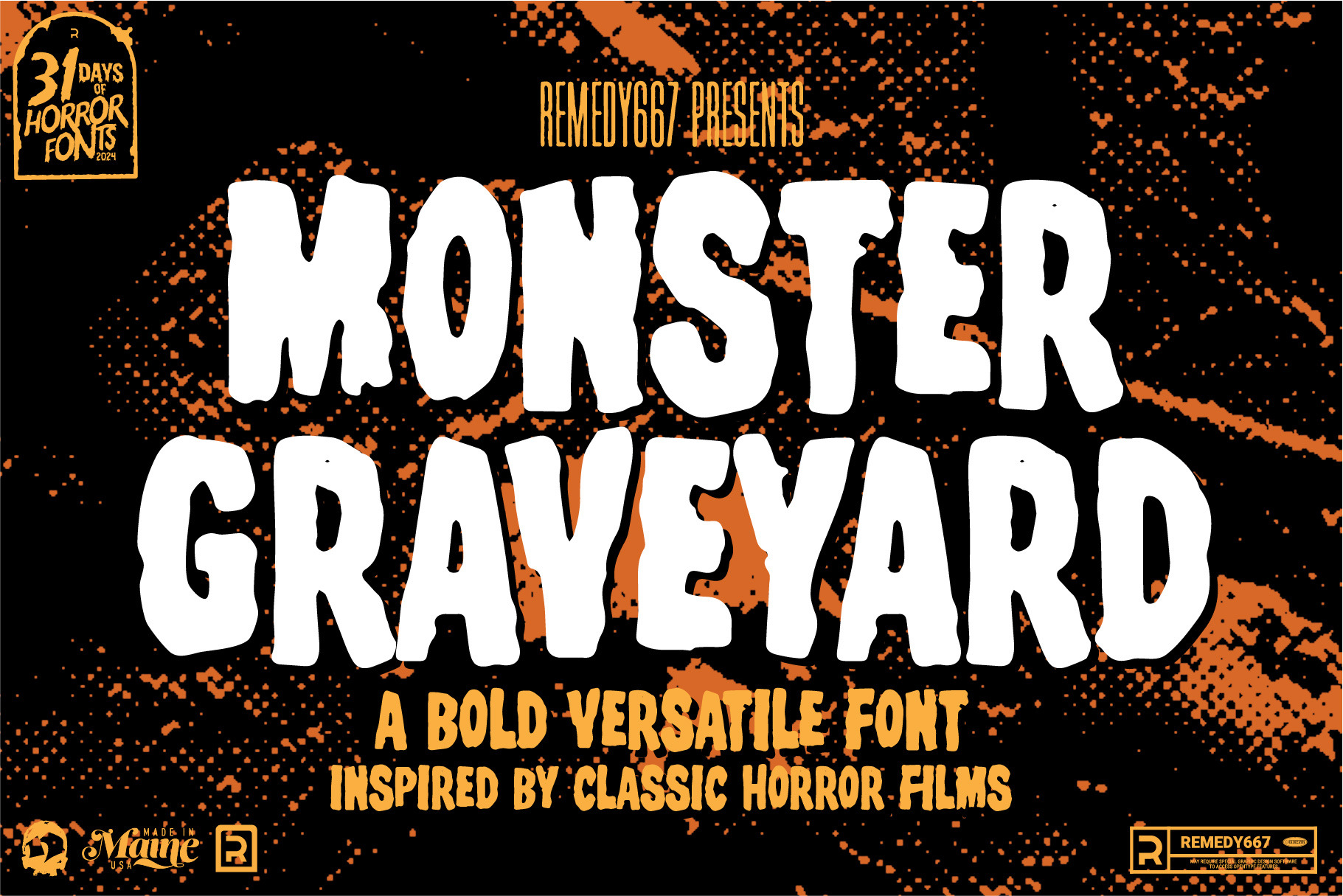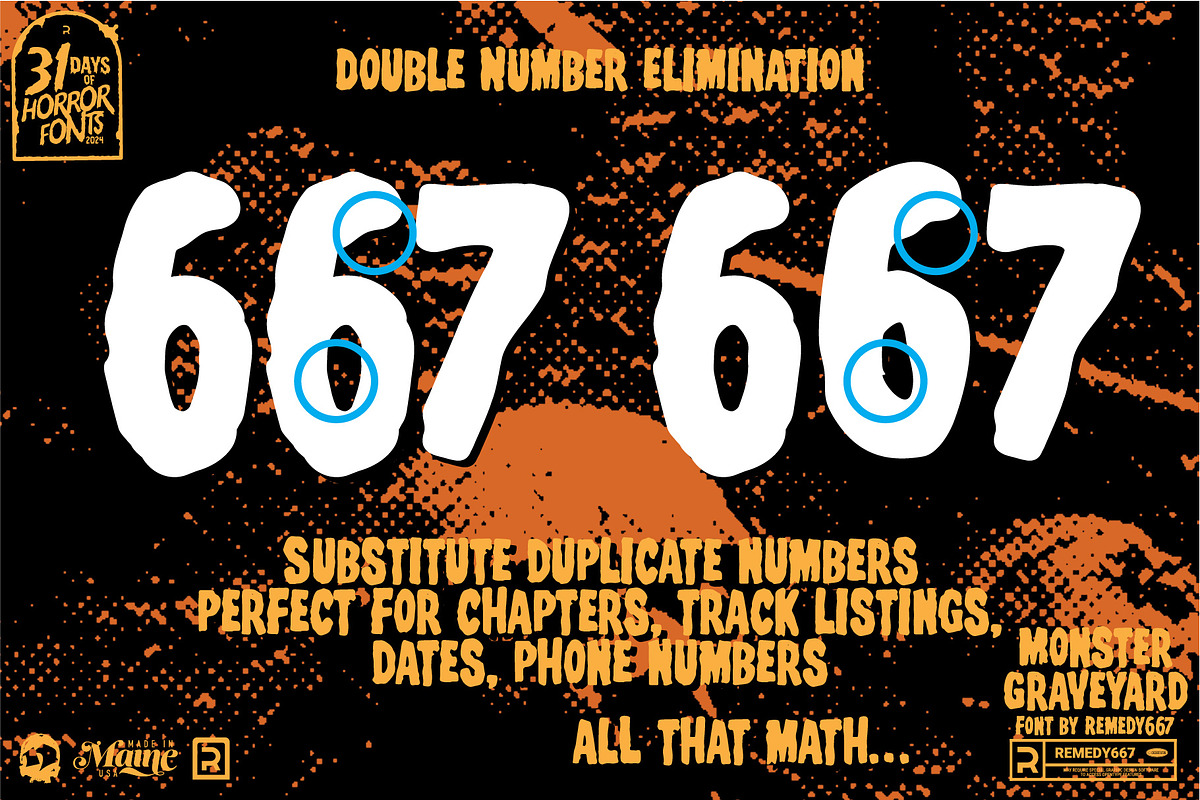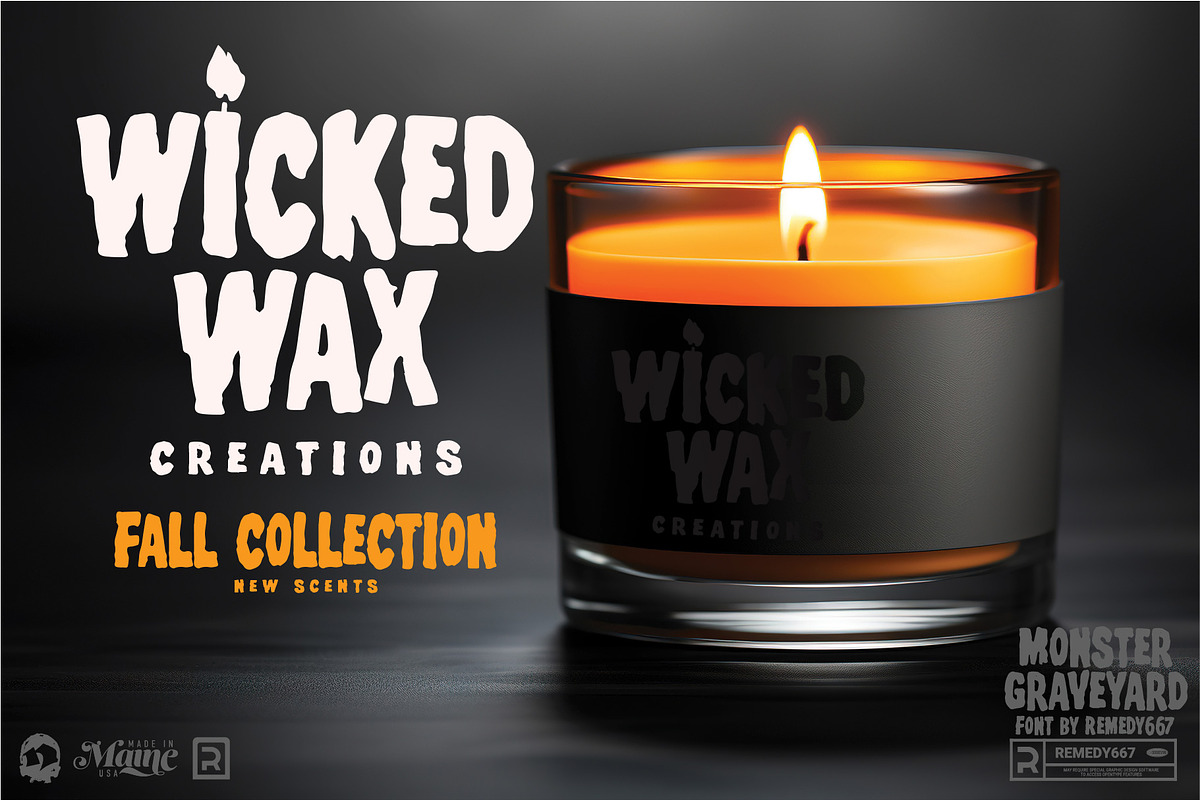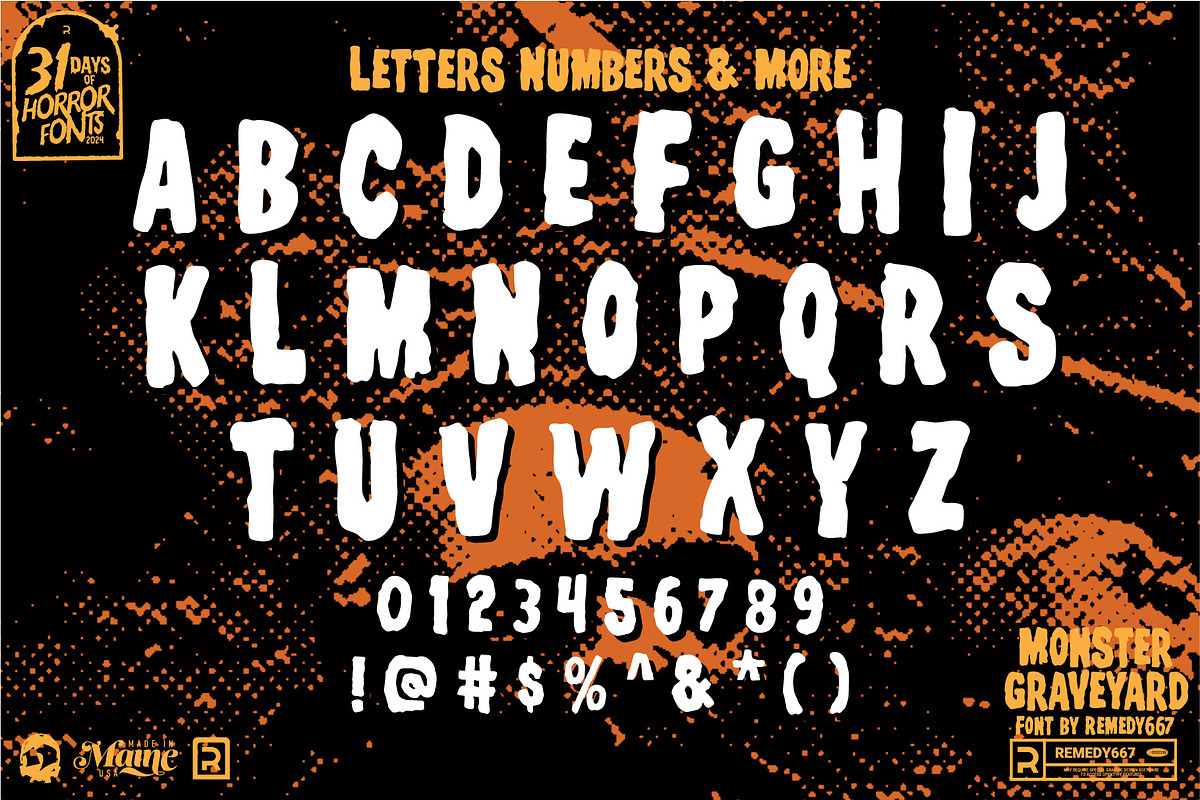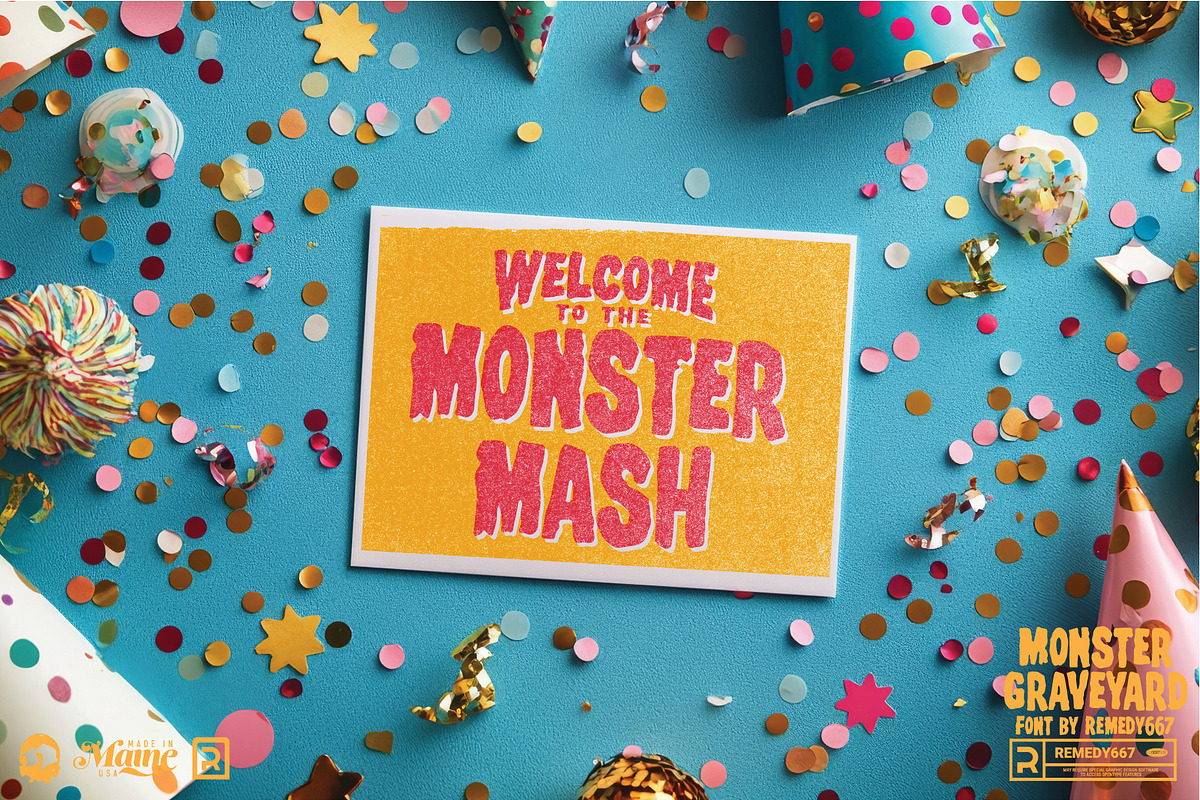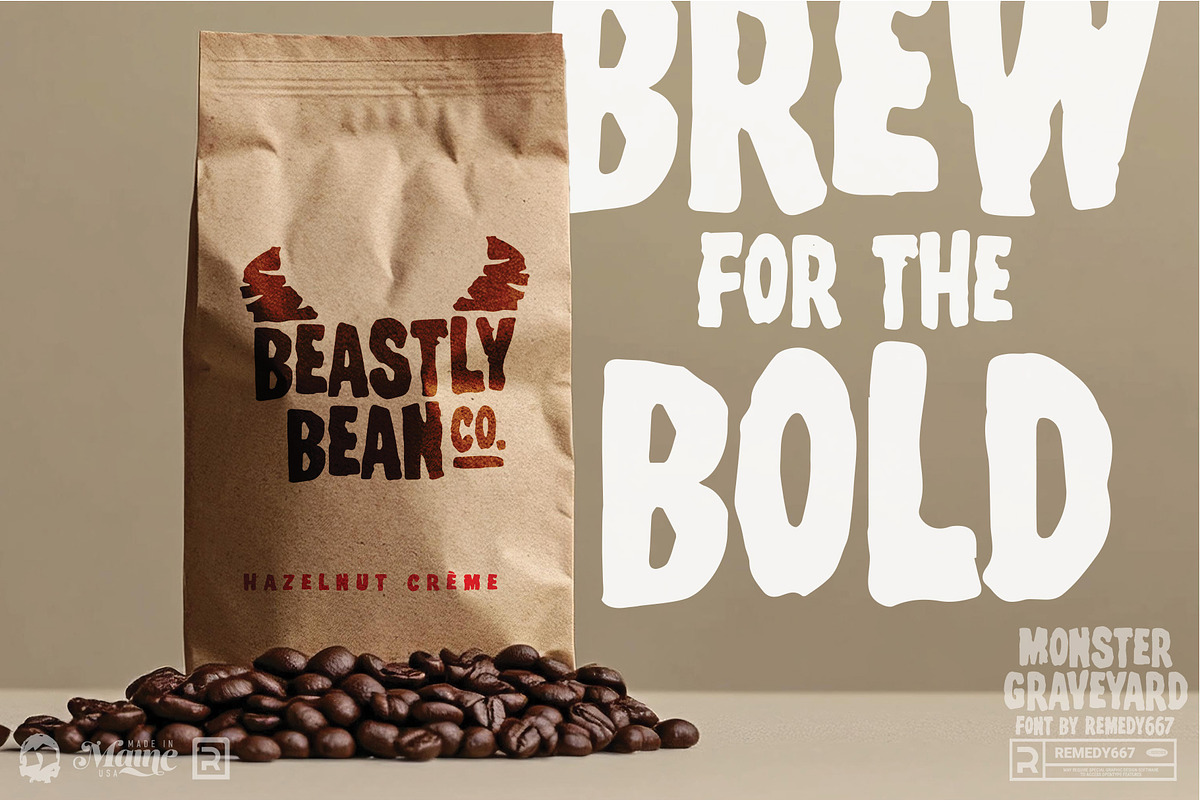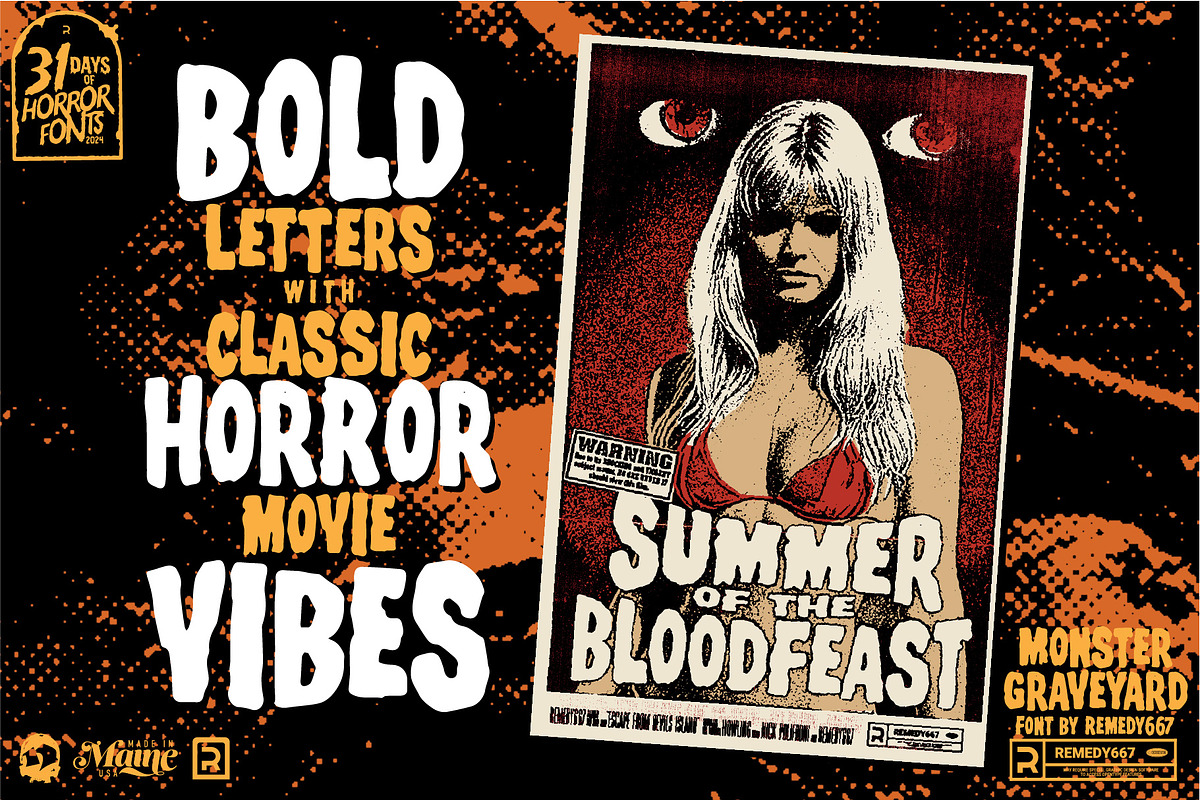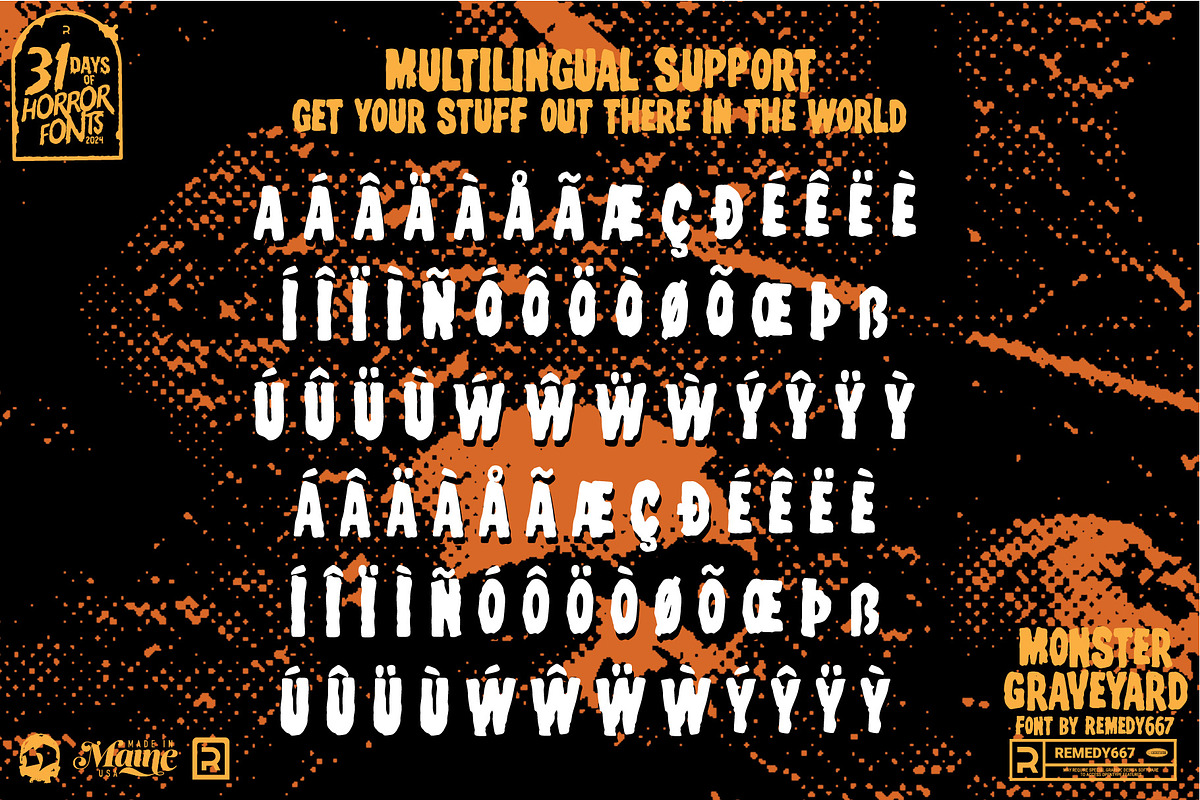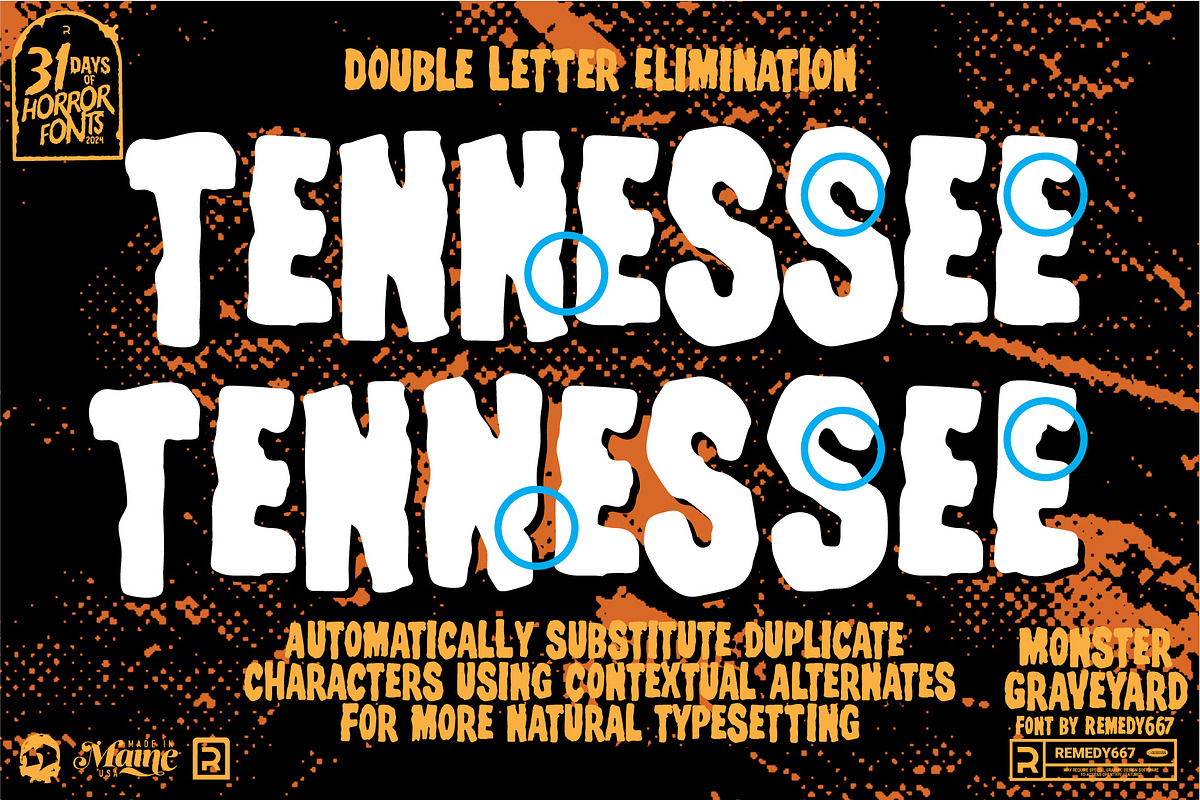
Monster Graveyard - Horror Font
Greetings, fright fans! Step into the Monster Graveyard, where the creatures of the 1950s and 60s rise again in typographic terror! This fiendishly fun font resurrects the spirit of classic monster movies, oozing with retro charm and hand-drawn horror. Whether you’re creating posters, spooky decorations, or monstrous merchandise,Monster Graveyard is your ticket to terror-ific designs.
Crafted during the 31 Days of Horror Fonts 2024, this typeface combines classic monster movie aesthetics with modern usability. It’s the perfect ghastly companion for projects needing a touch of vintage horror magic. But beware… once you let Monster Graveyard haunt your designs, there’s no turning back!
- Complete set of letters, numbers, and punctuation.
- Multilingual support for international screams.
- Hand-drawn lettering inspired by 1950s and 60s monster movie posters.
- Perfect for posters, merchandise, logos, and decorations.